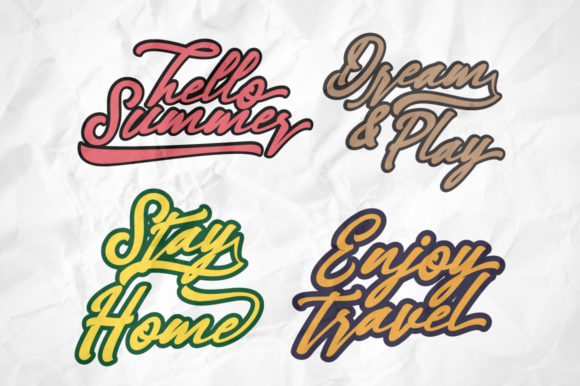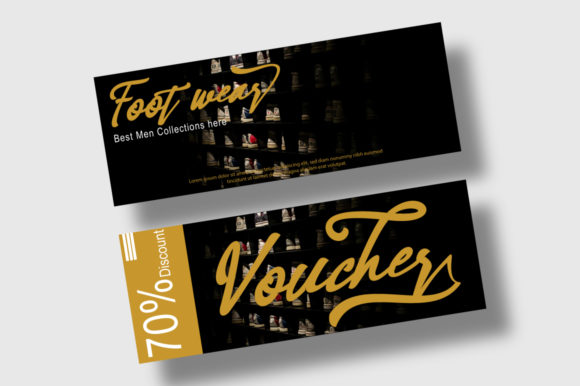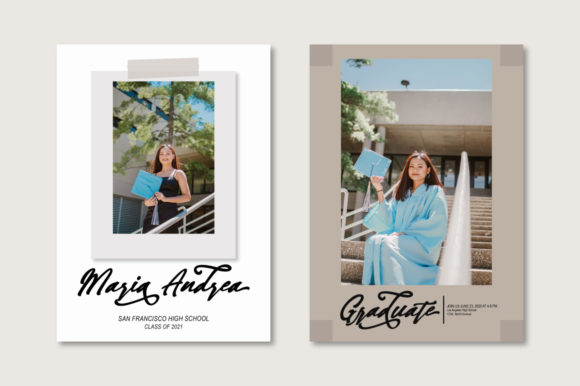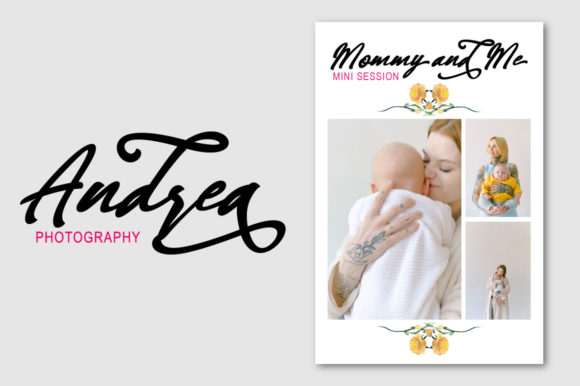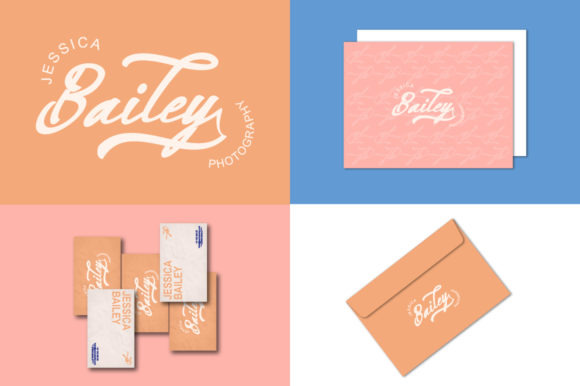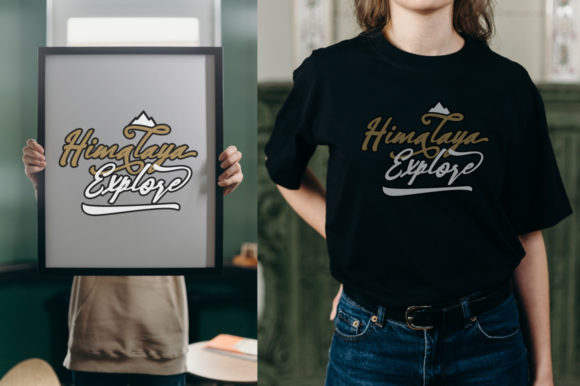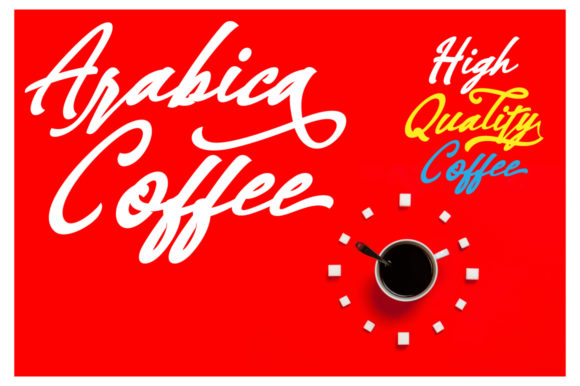
Handover Font
About Handover Font
Handover is a beautiful handwritten font. It looks lovely on wedding invitations, thank you cards, quotes, greeting cards, logos, business cards and every other design which needs a handwritten touch.